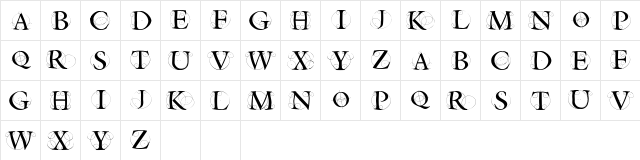
CircleInitialsFreeshape Regular
Design Context for CircleInitialsFreeshape Typeface
CircleInitialsFreeshape offers clean, dependable letterforms without strong stylistic allegiance, making it a practical choice for designers who need flexibility.